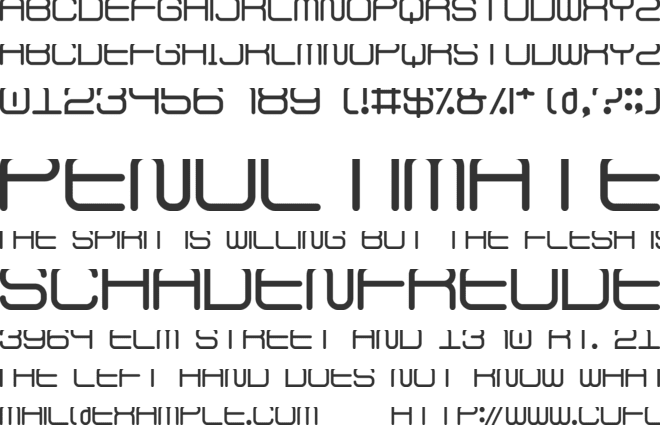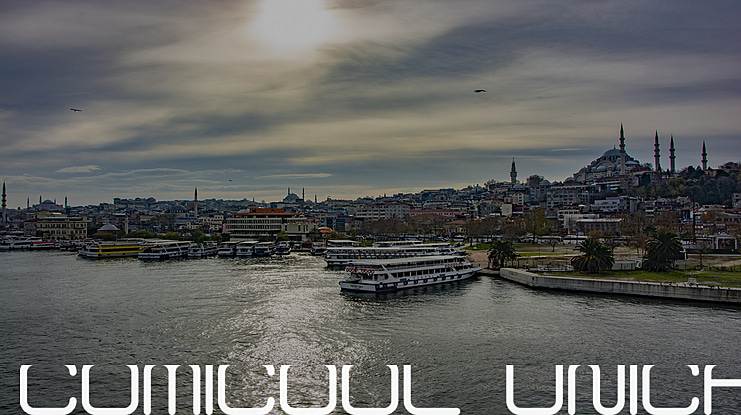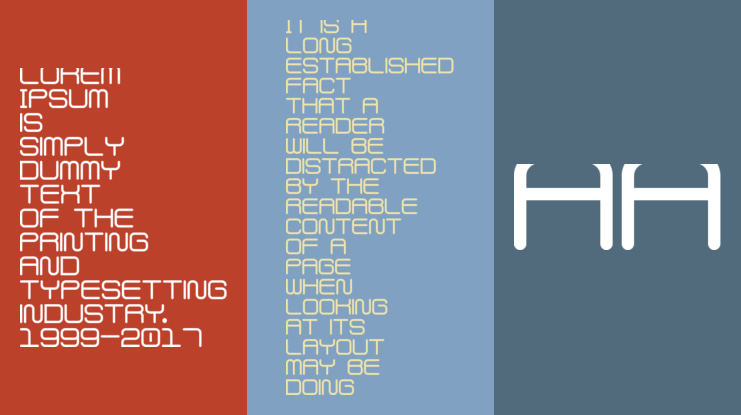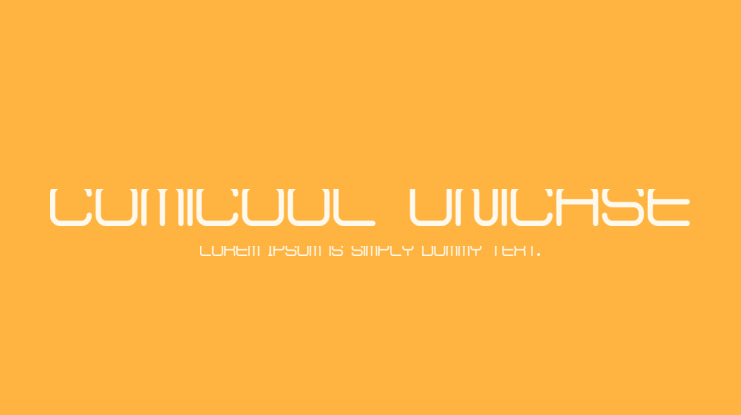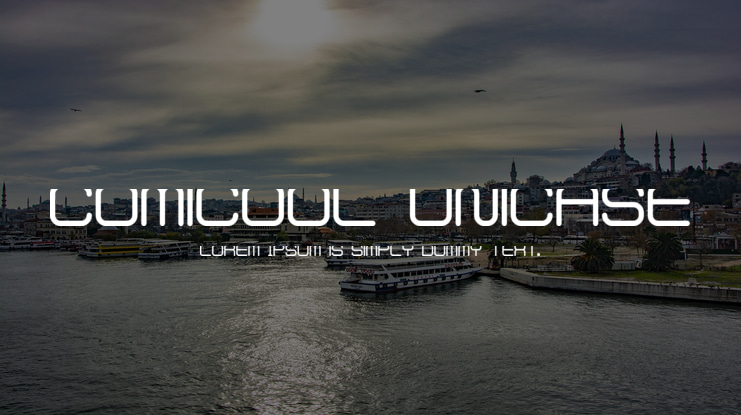
Comicool Unicase Font Family
Sans-serif designs for comics, terminal use, and similar applications. This is a family of 3 fonts each designed for a slightly different purpose.